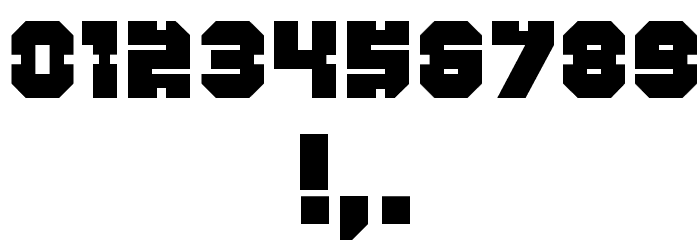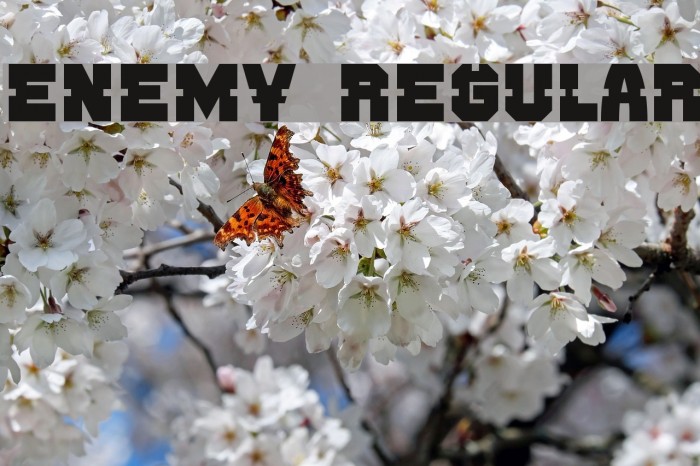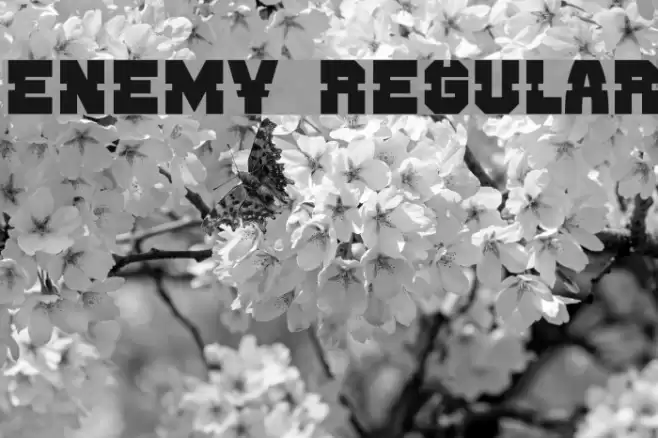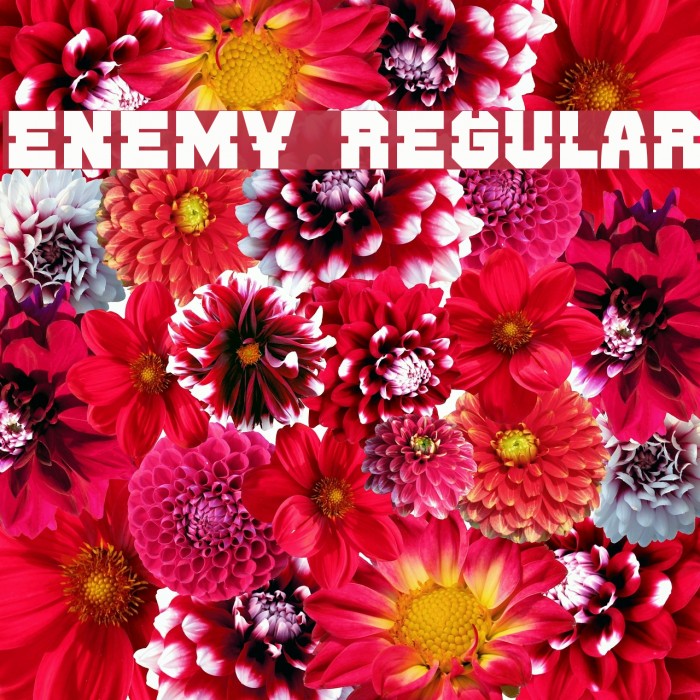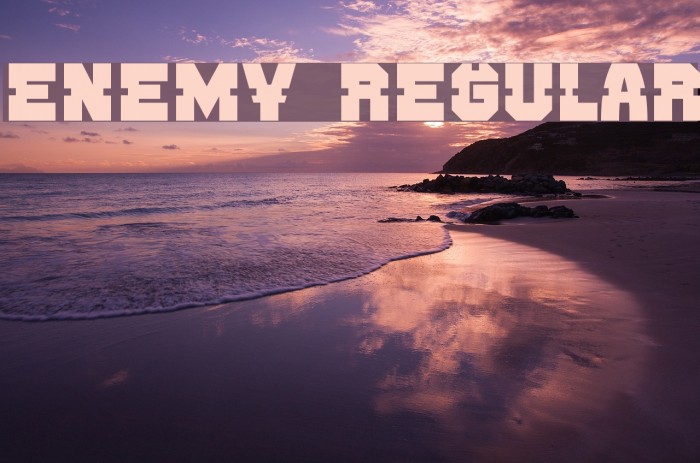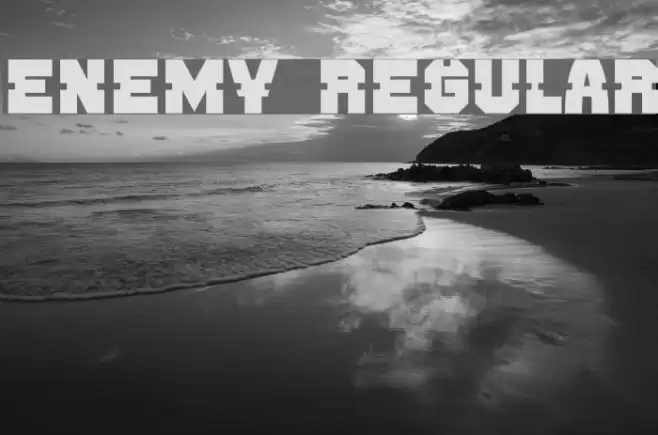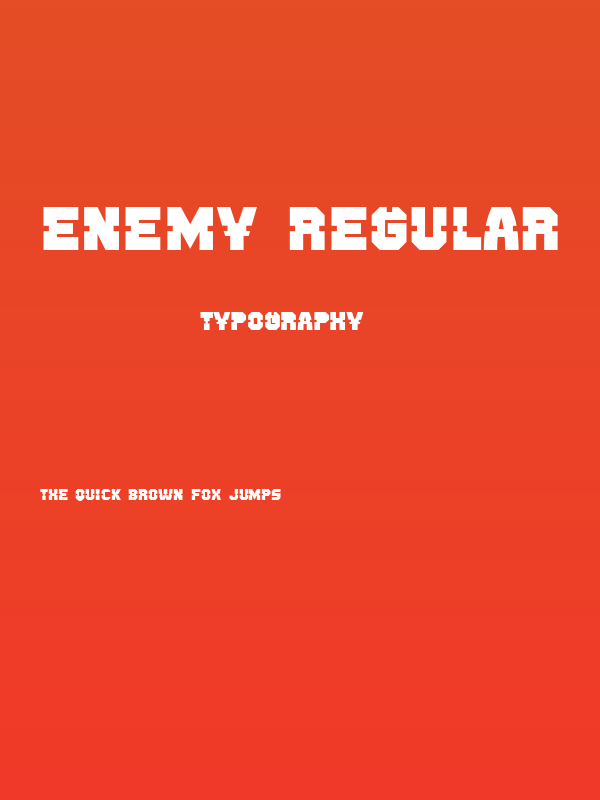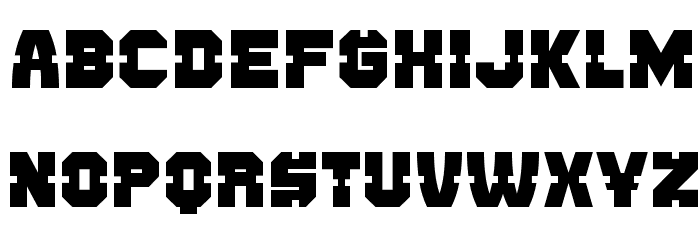
Enemy Regular Font
Enemy Regular Description
This font features a bold, geometric design with strong, angular lines and a blocky appearance. The characters are uniformly thick, creating a sense of strength and stability. The uppercase letters are particularly striking, with sharp edges and a consistent height that conveys a sense of authority and impact. The numerals and special characters maintain this robust style, ensuring a cohesive look across all text elements. This font's unique style makes it ideal for attention-grabbing headlines or branding that requires a bold statement.
| Proposed Projects | Ideal for use in posters, logos, video game titles, and any project requiring a bold, impactful typeface. |